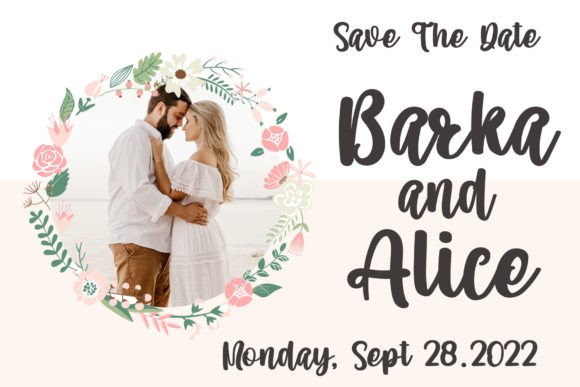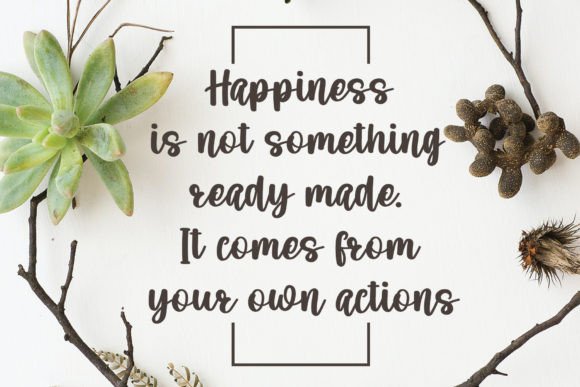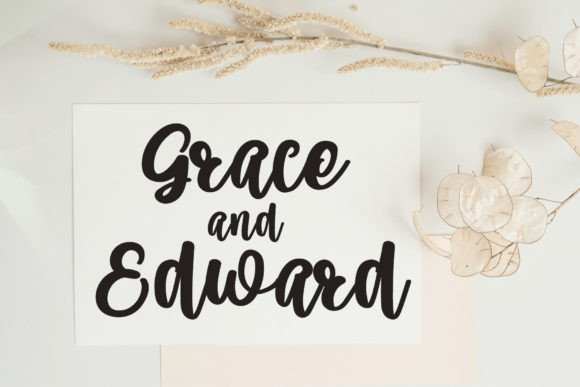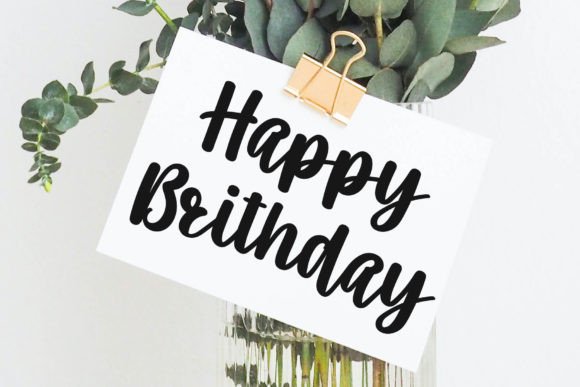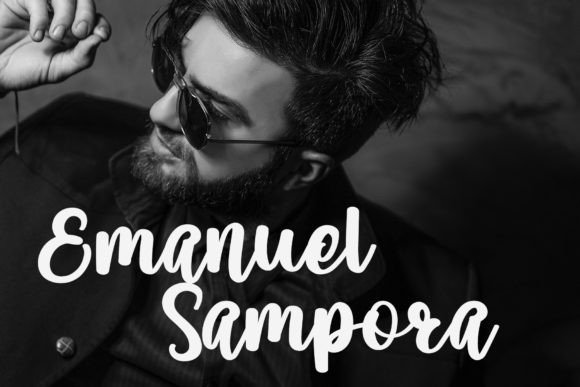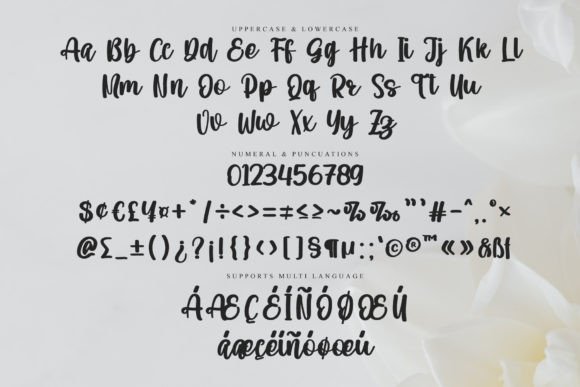
Unlocking the Power of Handwritten Charm
Have you ever stared at a blank page, pencil in hand, and felt a surge of creativity as the perfect idea finally clicks into place? That moment is what drives designers like you to push the boundaries of visual storytelling. And when it comes to making your creations shine, the right font can be the difference between a good idea and a great one.
Enter the Hanger Font, a modern and friendly handwritten font that’s been carefully crafted to add a touch of personality to any project. With its highly detailed design, Hanger Font is the perfect asset to have in your font library, capable of elevating any creation to new heights. Whether you’re working on a personal project or a client assignment, this versatile font is sure to bring your vision to life in a way that’s both authentic and engaging.
Hanger Font Key Features
- Unique Characteristics: Hanger Font features a unique blend of geometric and organic shapes, resulting in a distinctive and modern aesthetic. Its clean lines and precise typography make it ideal for use in branding, advertising, and editorial design.
- Kerning and Ligatures: Hanger Font includes expertly crafted kerning pairs and ligatures, ensuring that text sets with the font will display beautifully and professionally.
Hanger Font Review
I recently had the chance to work with the Hanger font, and I must say it’s been an interesting experience. Let’s dive into what works well and what doesn’t.
- Unique aesthetic: The Hanger font has a distinctive, handwritten feel that can add a touch of personality to your designs.
- Readability: Despite its unconventional style, the font is surprisingly readable, making it a great choice for body text.
- High-resolution support: The font looks great at various resolutions, from small text to large headlines.
- Limited character set: The Hanger font has a relatively small character set, which may not be ideal for projects requiring extensive international support.
- Not ideal for small text: While the font is readable, it’s not the best choice for small text, as the letters can become difficult to decipher.
- Lack of font families: The Hanger font is a single-family font, which may limit your design options.
Overall, the Hanger font is a great choice for projects where you want to add a touch of personality and whimsy. However, it may not be the best fit for projects requiring extensive international support or small text.
Hanger Font Practical Application Guide
Getting Started with Hanger Font
Hanger Font is a modern sans-serif typeface designed for digital use. To apply it to your design, follow these steps:
Tips for Getting the Most Out of Hanger Font
1. Use Hanger Font for headings and titles to create a clean and modern look.
2. Pair Hanger Font with other sans-serif fonts for a cohesive design.
3. Experiment with different font sizes and styles to create visual hierarchy.
Hanger Font is perfect for:
– Digital product designs (e.g. apps, websites)
– Modern branding and identity design
– Clean and minimalist design aesthetics